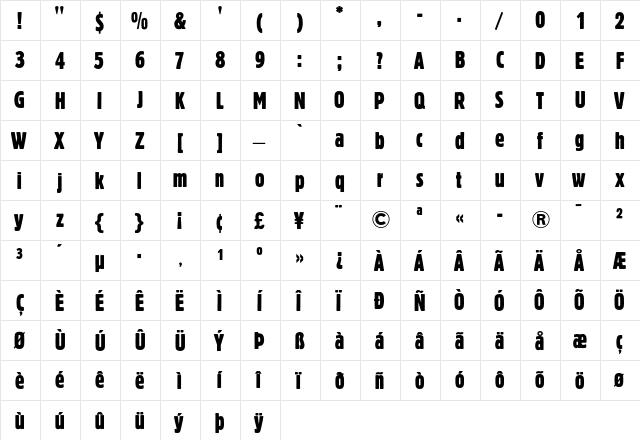
Block Berthold Extra Condensed
Design Context for Block Berthold Typeface
Block Berthold is a composed and adaptable typeface that performs quietly and consistently across a wide range of design contexts. Its narrow stance lets it pack a punch even in space-constrained designs.
Pro Tip: Pair Block Berthold with a font of contrasting weight or personality to build a more expressive typographic hierarchy.